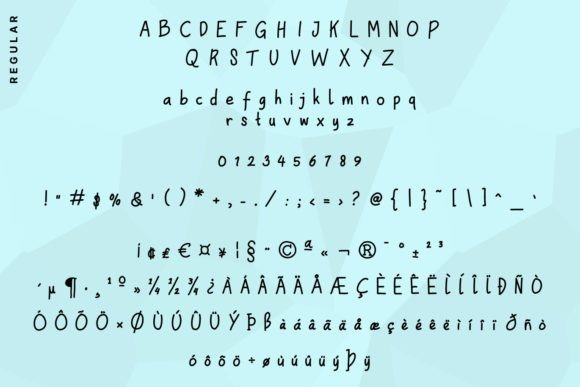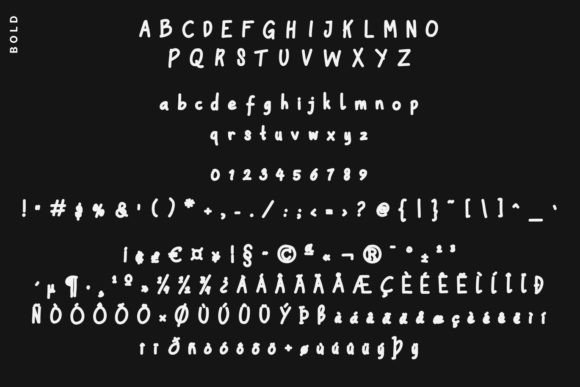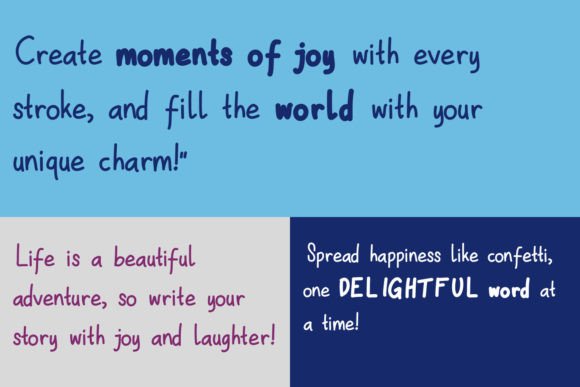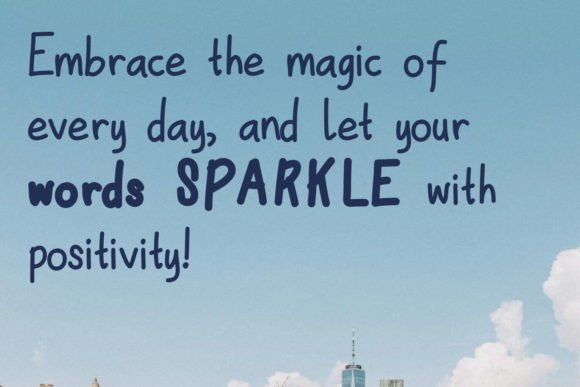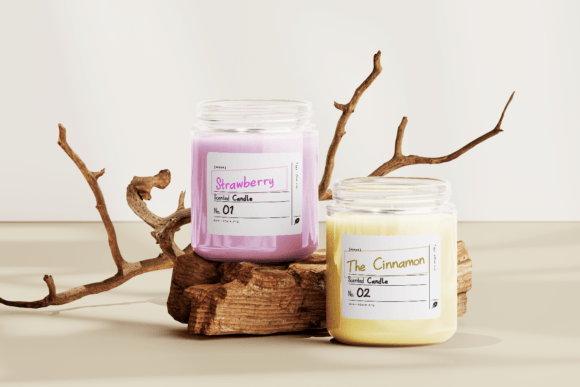
Introduction to Monoluv Font
Monoluv is a handwritten font for all your design needs.
Suitable for image products, fun, cute, kids, feminine, indie scene, chill, foods, art and design, relax, fresh, and simple style Suitable for tote bags, postcards, social media, ads, foods, quotes, posters, stickers, labels, etc.
Key Features of Monoluv Font
Why Choose Monoluv Font?
Monoluv Font offers exceptional quality and versatility, making it a valuable addition to your design toolkit. Whether you’re creating for personal projects or commercial use, Monoluv Font delivers professional results.